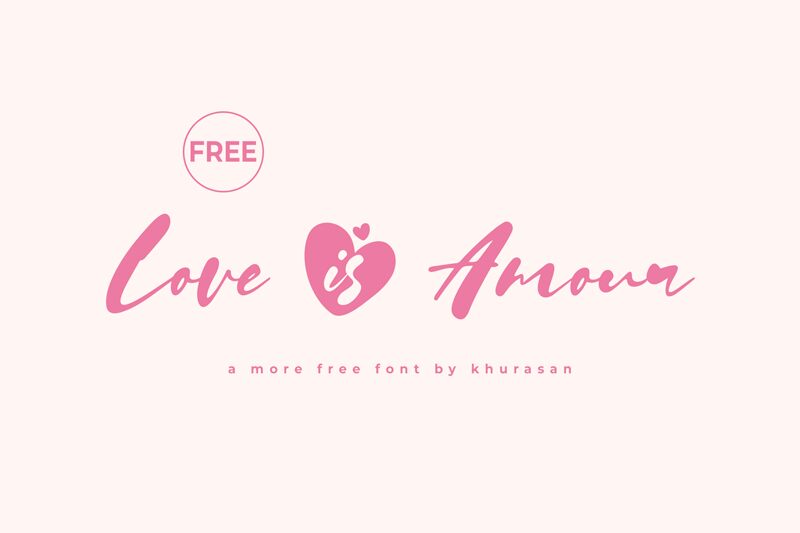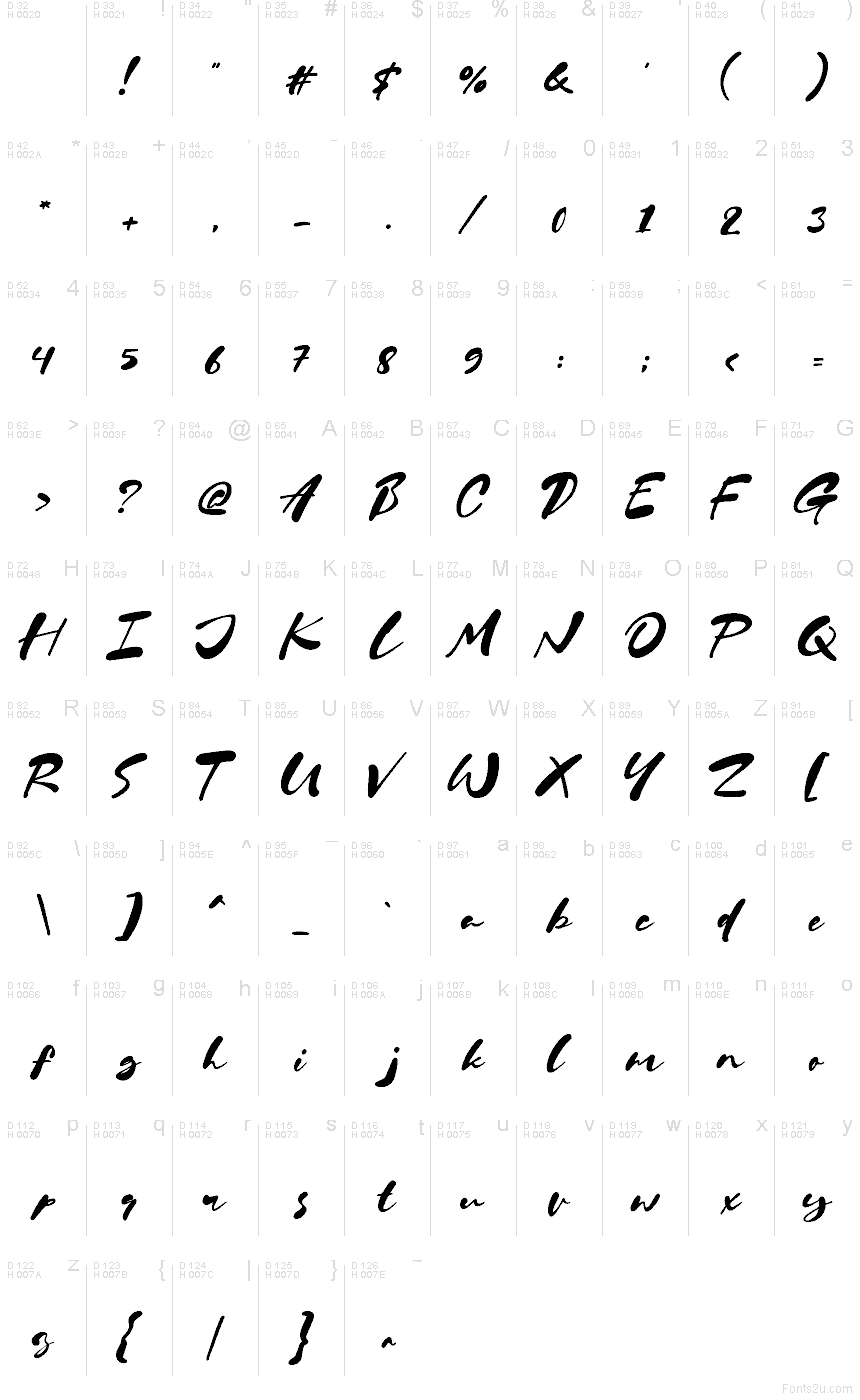
Love Is Amour
Love Is Amour font by Khurasan is a free brush script typeface that feels like a single, confident stroke of inky black across the page. Its letters are loose, windswept, and a little irregular in all the right ways, like handwriting done quickly in real wet brush. The gentle slant and sweeping endings give it a romantic, cinematic energy that reads as personal rather than polished or corporate.
Using Love Is Amour, your text instantly carries that handwritten, love-note mood—great for wedding invitations, save-the-dates, Valentine’s promos, boutique branding, social media quotes, and product packaging. This free font shines at larger sizes where the textured strokes can really breathe. For a simple pairing, use Love Is Amour for headlines and combine it with a clean, light sans serif for body copy to keep everything readable and modern.